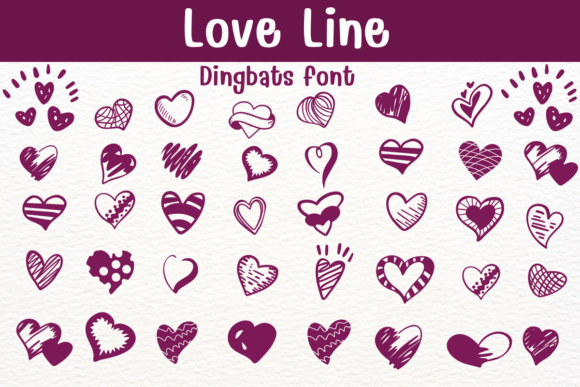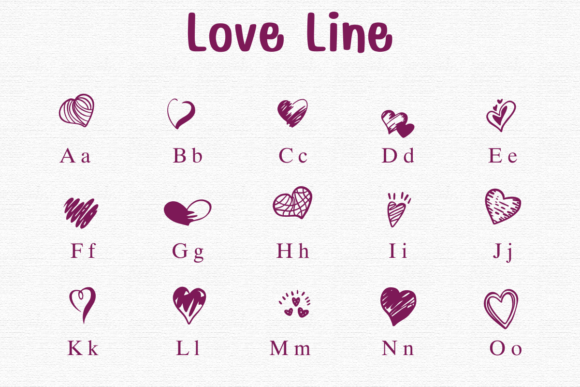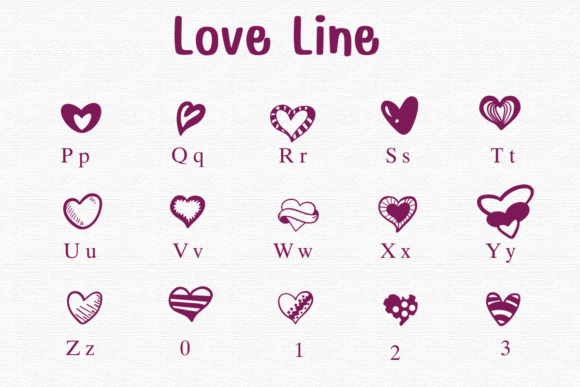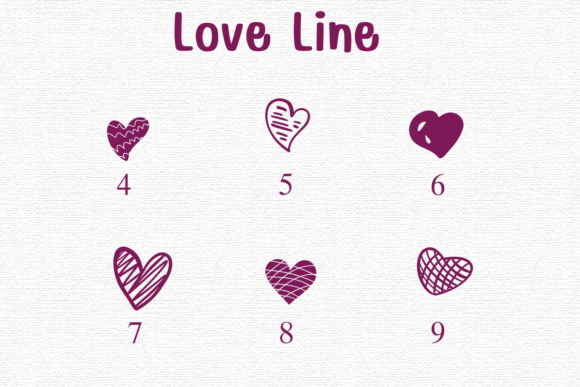
About the Love Line Font
Introducing the Love Line Font, a beautifully crafted typeface designed to elevate your creative projects. Love Line is a romantic dingbats font packed with whimsical hand-drawn hearts in various line-art styles. Ideal for Valentine’s Day, wedding designs, greeting cards, and love-themed crafts, this font adds an affectionate and artistic touch to your designs.
Love Line’s playful, hand-drawn aesthetic makes it perfect for projects requiring a touch of whimsical romance. It excels in short, impactful designs such as logos, social media graphics, and wedding invitations where its individual characters shine. However, its decorative nature makes it unsuitable for body text or lengthy passages.
Pairing Love Line with a clean sans-serif like Helvetica Neue for body text provides a strong contrast, balancing its romantic charm with modern readability. Alternatively, a classic serif such as Garamond could add a touch of timeless elegance. For a more playful effect, consider pairing it with a script font like Allura, but ensure sufficient contrast in weight and size for optimal legibility.
The font’s overall personality is undeniably cheerful and romantic, ideal for brands focusing on love, weddings, or artisanal crafts. Avoid using it for projects demanding seriousness or professionalism.